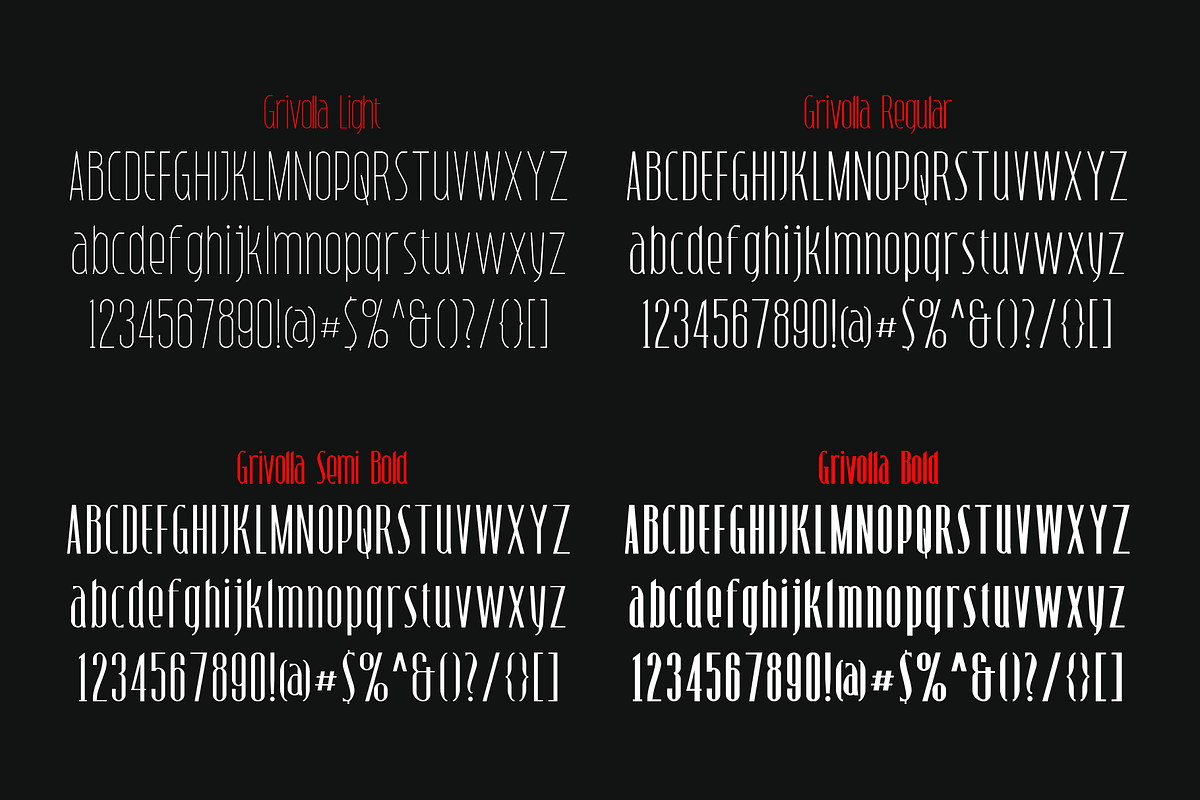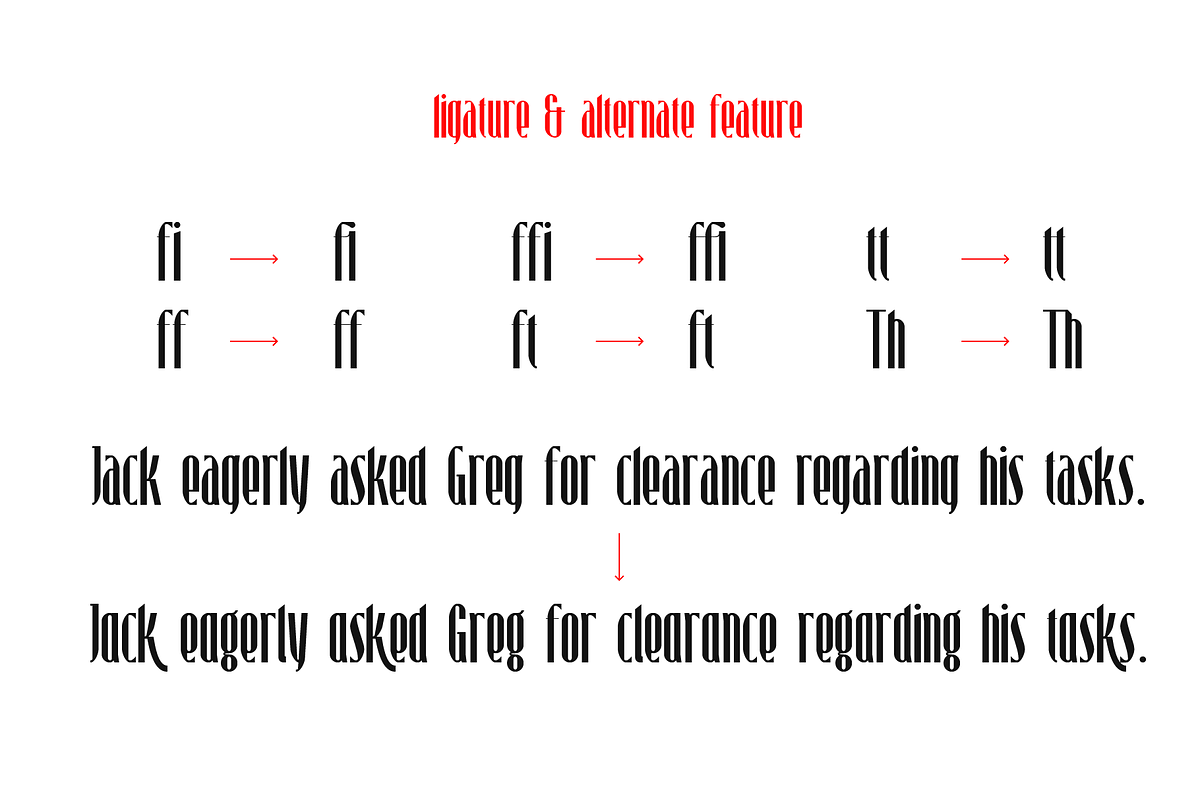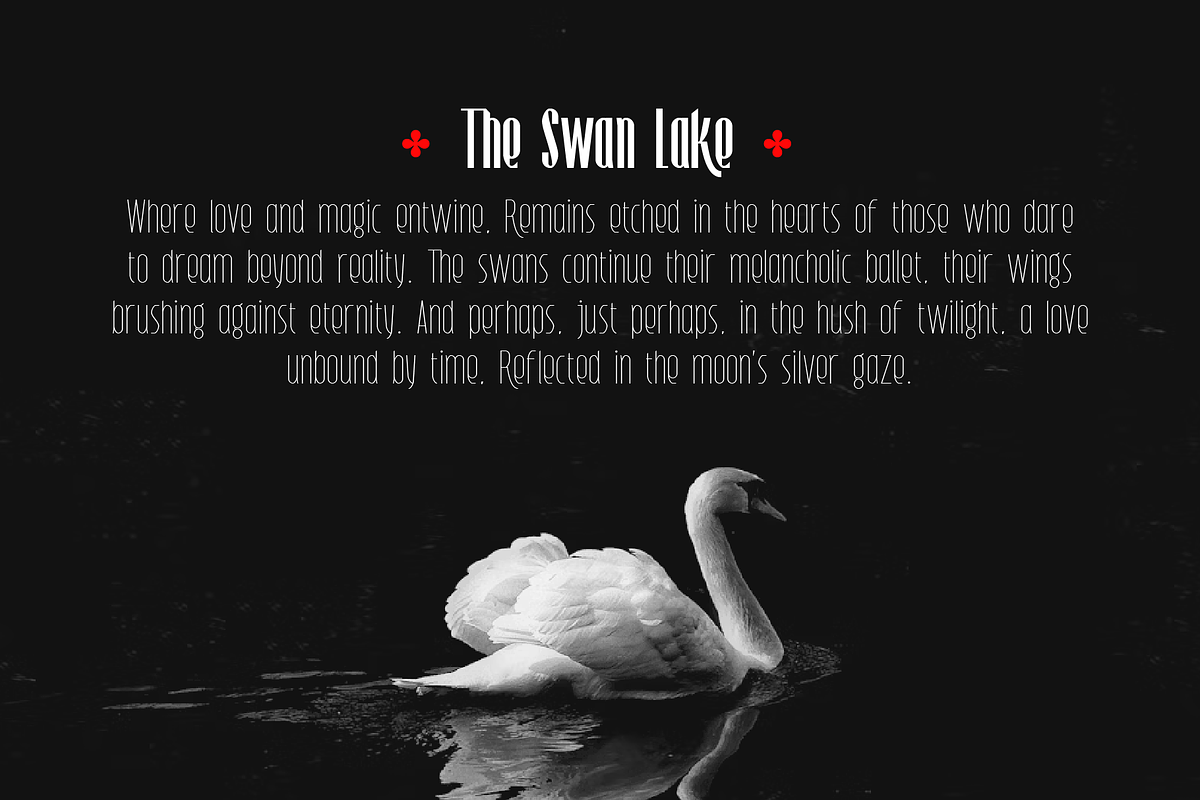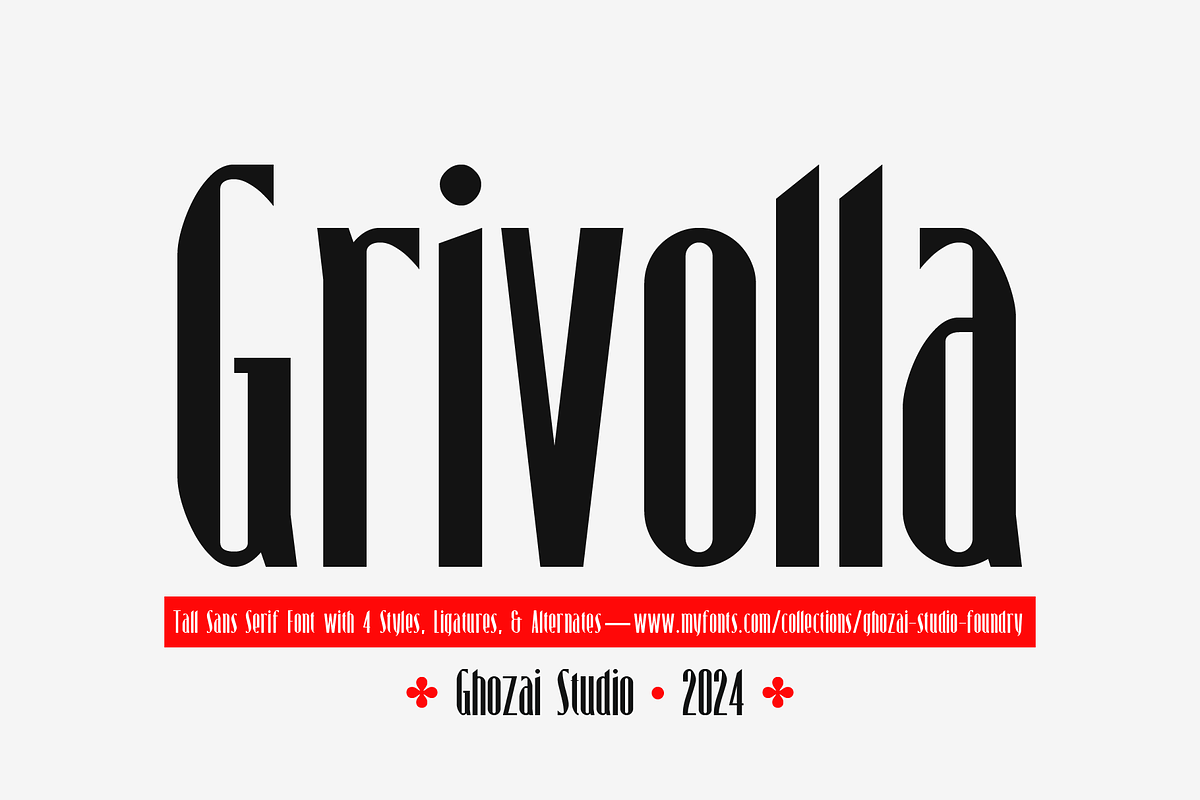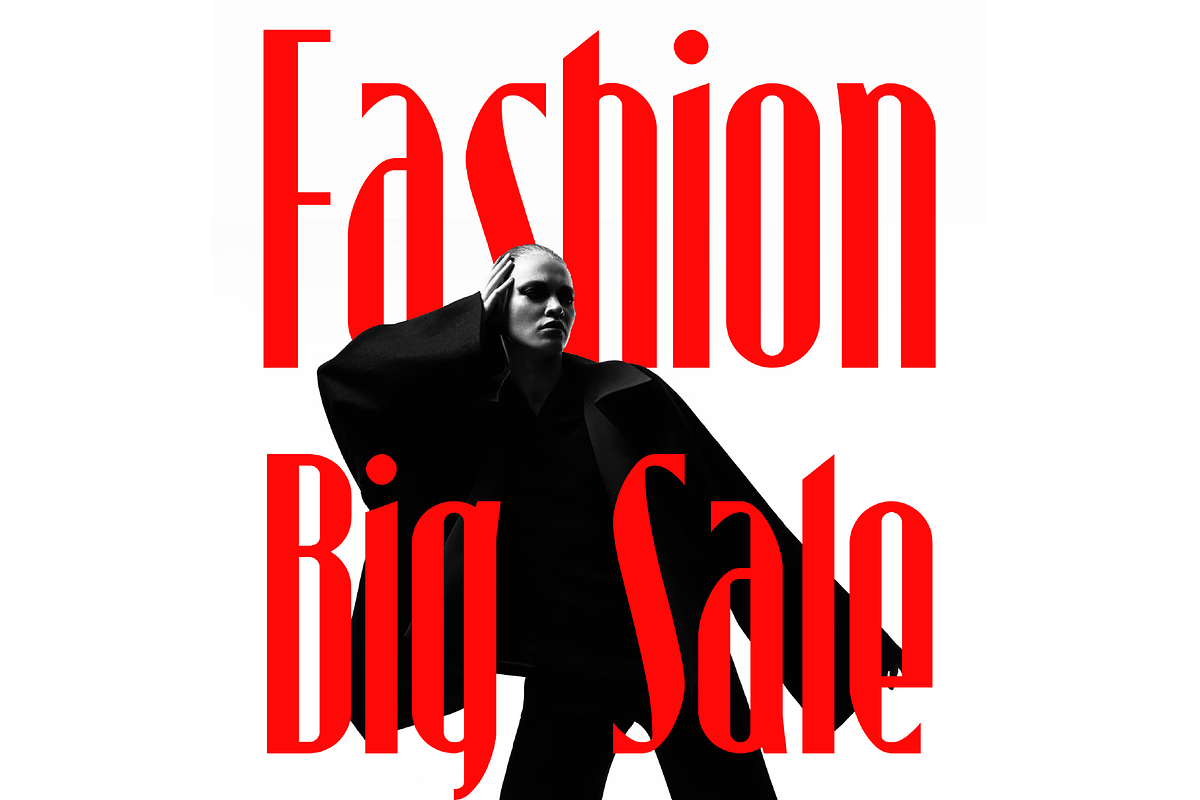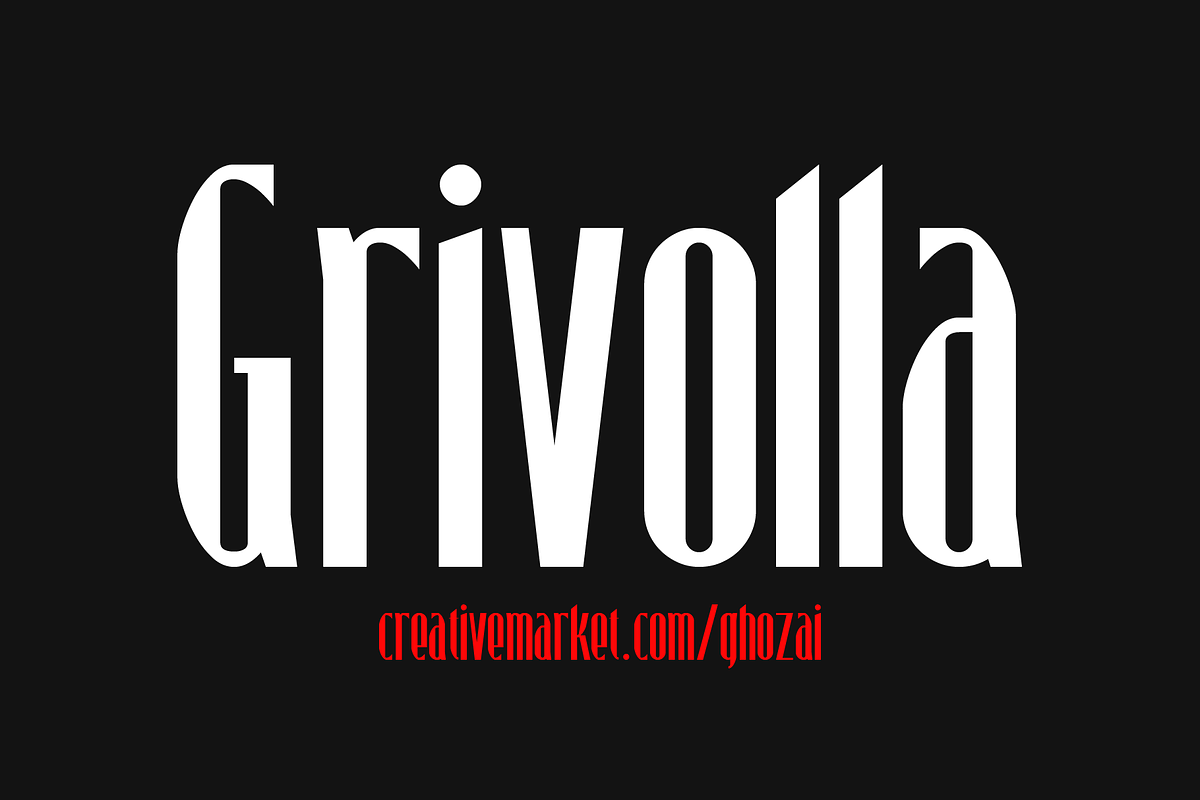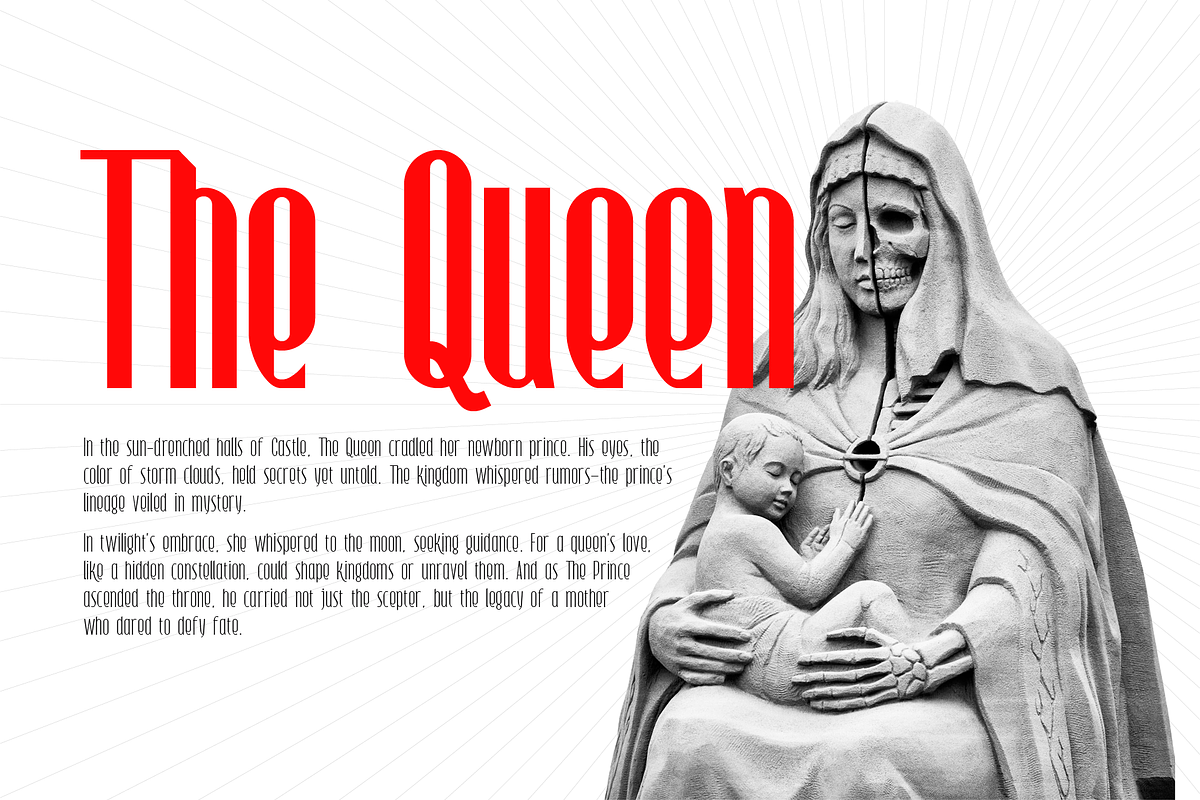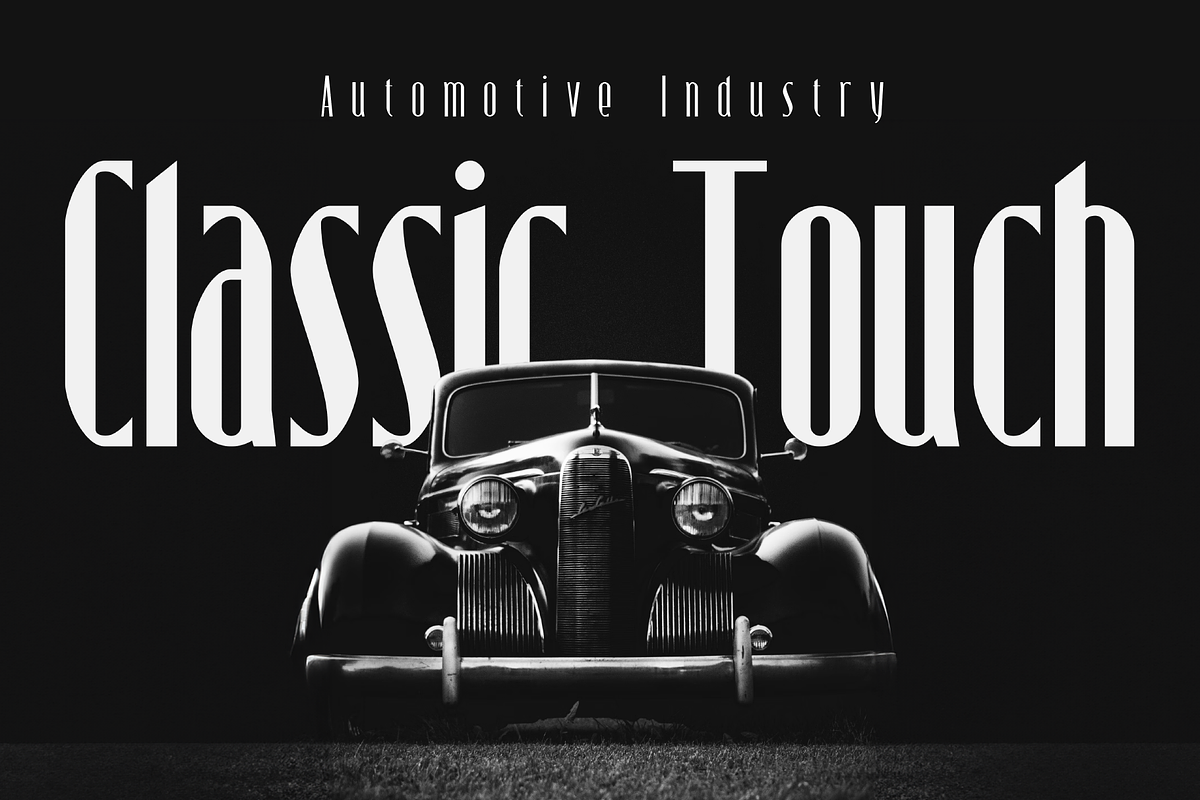
Grivolla
Grivolla stands as a tall, elegant sans-serif font that takes inspiration from the classic era of the 1920s and 1930s. With 4 styles, ligatures, and alternate OpenType features, it offers unrivaled versatility and sophistication. Whether for headlines, billboards, magazines, websites, titles, posters, branding, or logos, Grivolla is the ultimate choice for any design project.